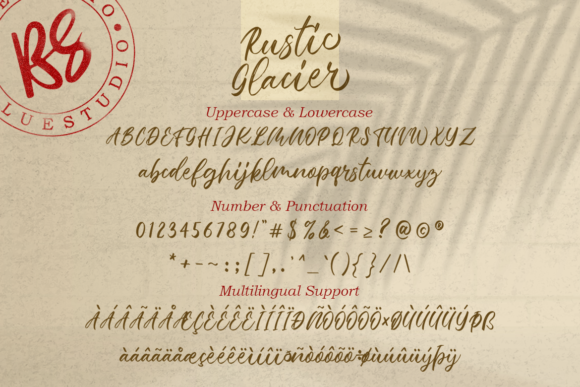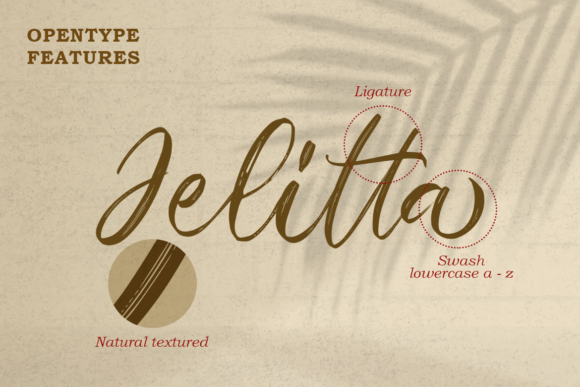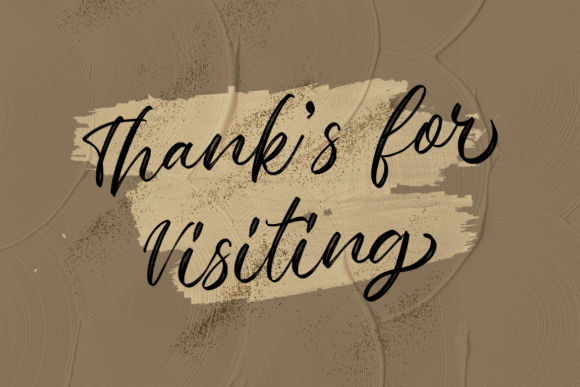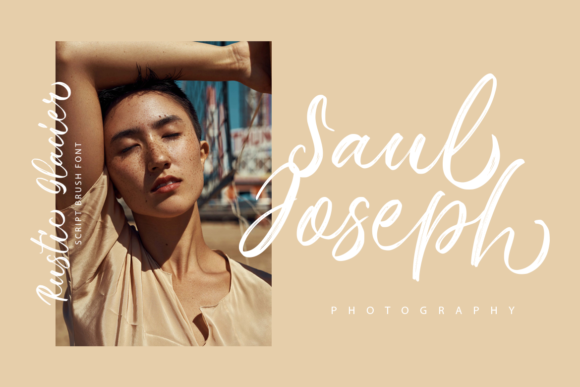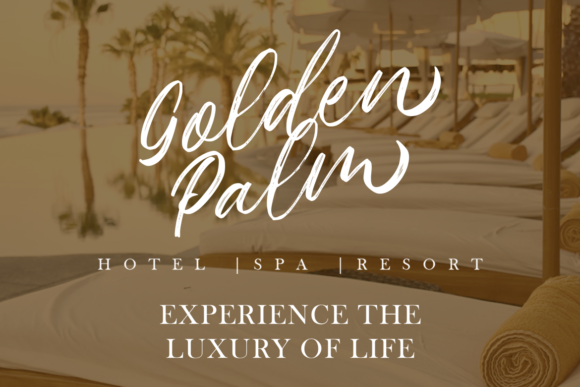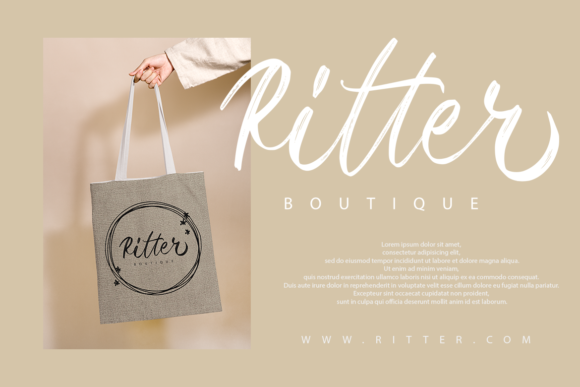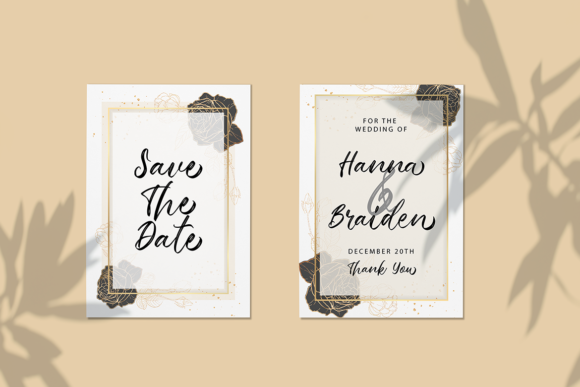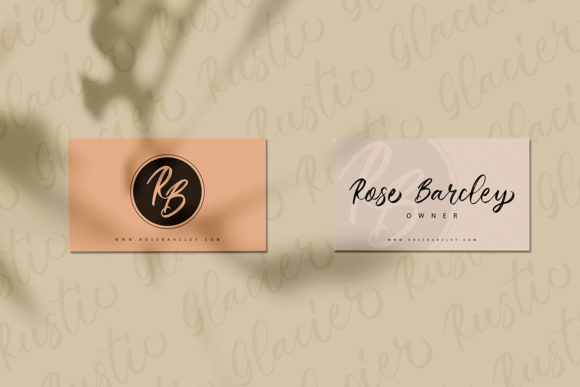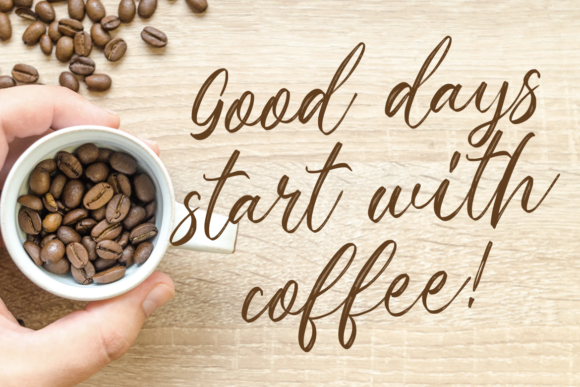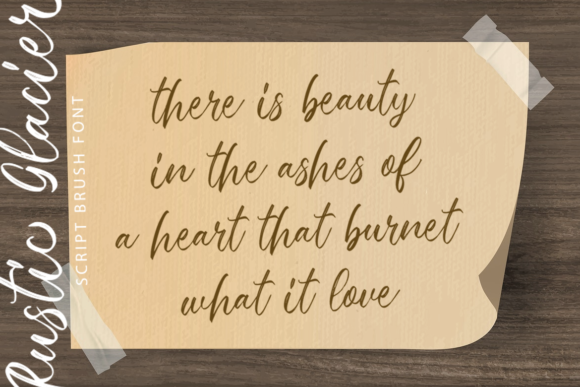
Rustic Glacier Font
Introducing Rustic Glacier: The Beautiful and Delicate Handwritten Font
Step into a world of magical beauty with Rustic Glacier, a font created with the delightful strokes of a paint brush. Dainty and joyful, Rustic Glacier exudes elegance and charm in its handwritten style. Ideal for writing wedding invitations, cards, and any design that craves a romantic and personalized touch, Rustic Glacier adds a touch of enchantment to all your creative projects.
Rustic Glacier’s beautiful and delicate appeal brings a sense of grace and sophistication to your designs. Its handwritten letterforms flow with a seamless beauty, making your text exude a touch of magical charm.
As a font that was crafted with the help of a paint brush, Rustic Glacier becomes the perfect choice for capturing the essence of beauty and artistry. Its dainty and joyful nature ensures that your designs resonate with an enchanting and delightful touch.
Embrace the magic of Rustic Glacier as you embark on your creative journey. Let it be the font that enhances your work, creating a sense of romance and elegance in every project.
As you explore the possibilities of Rustic Glacier, you’ll find it to be a font that enhances your designs with ease. Its delicate handwritten beauty transforms your work, ensuring that your creations leave a lasting impression.
So, let Rustic Glacier be the font that adds a romantic and personalized touch to your designs. Embrace its enchanting and joyful charm, and watch as your wedding invitations, cards, and other creations come to life with a touch of magical beauty. With Rustic Glacier as your go-to font, your designs will resonate with grace and sophistication, captivating your audience and leaving a lasting impression. Embrace the beauty of Rustic Glacier and create designs that are truly delightful and unforgettable!